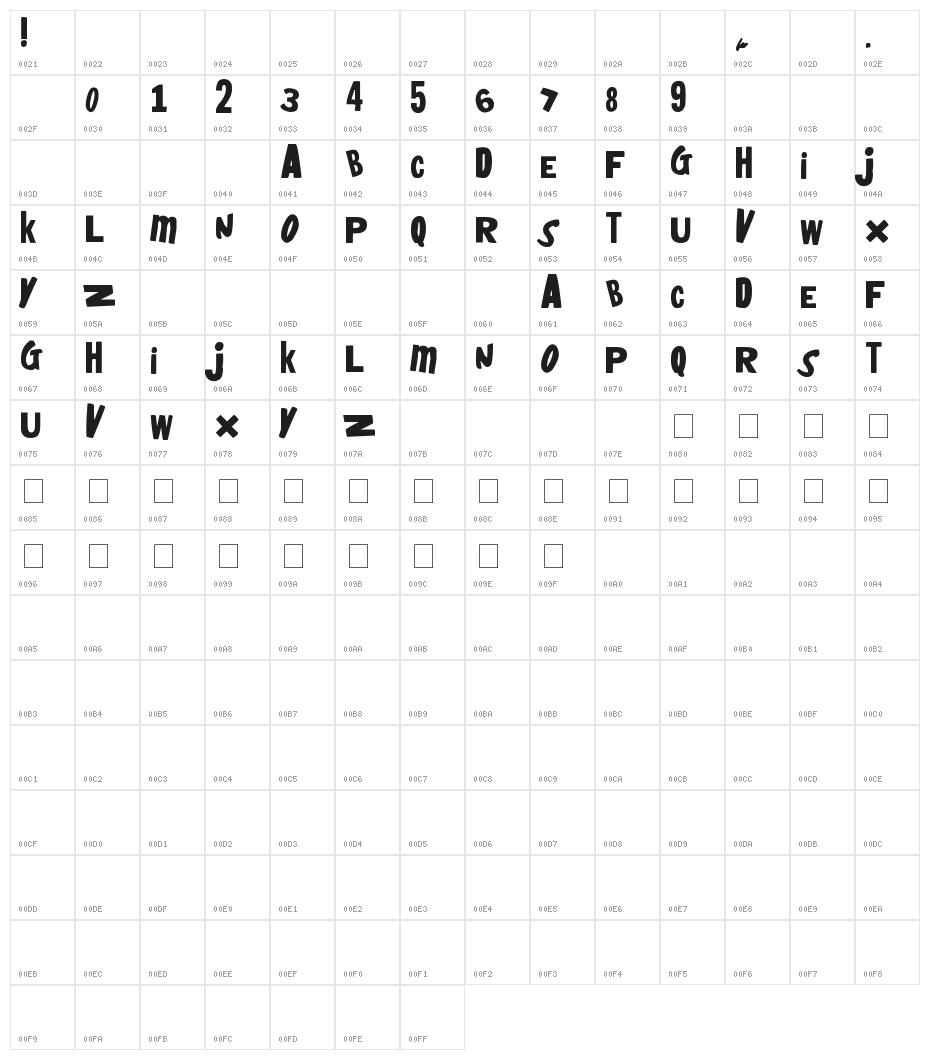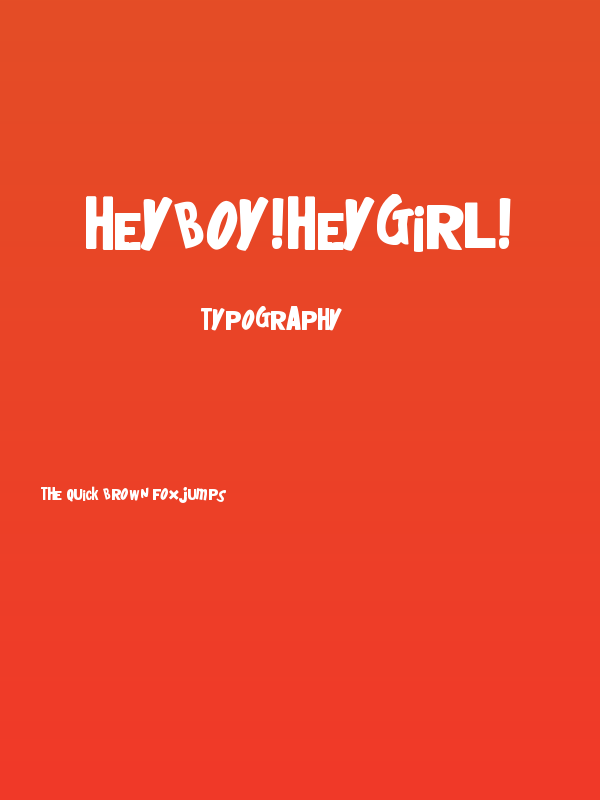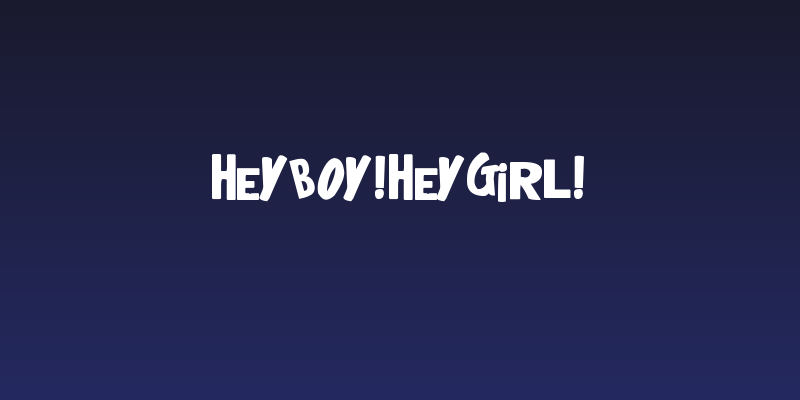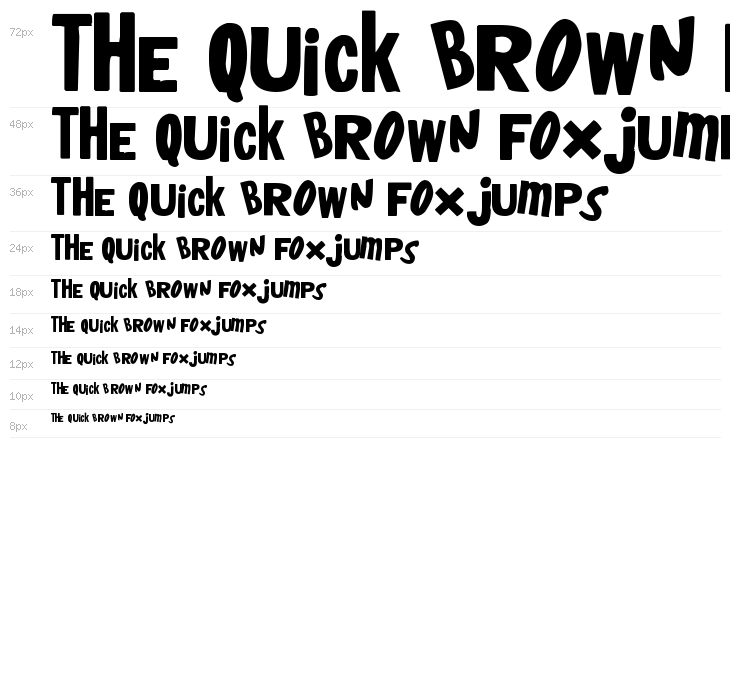
heyboy!heygirl! Font
heyboy!heygirl! Description
This font features a playful and bold style with a quirky, hand-drawn appearance. The characters are uneven and have a whimsical quality, making them stand out with their unique, irregular shapes. The uppercase and lowercase letters maintain a consistent style, with exaggerated curves and varying stroke widths that add to the font's charm. The numbers and special characters follow the same playful design, ensuring a cohesive look across all elements. This font's distinct personality makes it ideal for creative and informal projects.
HEYBOYHEYGIRL UPPERCASE
HEYBOYHEYGIRL LOWERCASE
HEYBOYHEYGIRL OTHER CHARS
| Overall Style | Playful, Quirky, Hand-drawn |